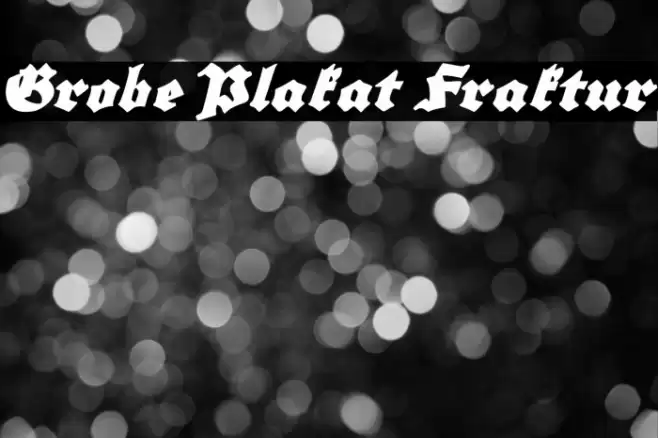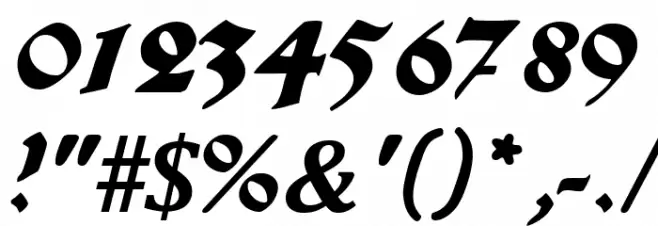
Grobe Plakat Fraktur Font
Grobe Plakat Fraktur Description
This font features a bold and dramatic style, reminiscent of traditional Blackletter typefaces. The characters are characterized by their sharp, angular lines and intricate detailing, giving them a distinct, historical appearance. The uppercase letters are particularly ornate, with exaggerated flourishes and a strong presence. The lowercase letters maintain the same stylistic elements but are slightly more subdued. Numerals and special characters are designed to match the overall aesthetic, ensuring consistency throughout. This font is ideal for projects that require a touch of elegance and historical flair.
A bold, dramatic Blackletter-style font with sharp, angular lines and intricate detailing from Uncategorized fonts.
- Proposed Projects: Suitable for use in historical documents, certificates, branding for luxury products, and decorative headlines.
- Overall Style: Vintage
- Use Case: Headlines, Logos, Decorative text